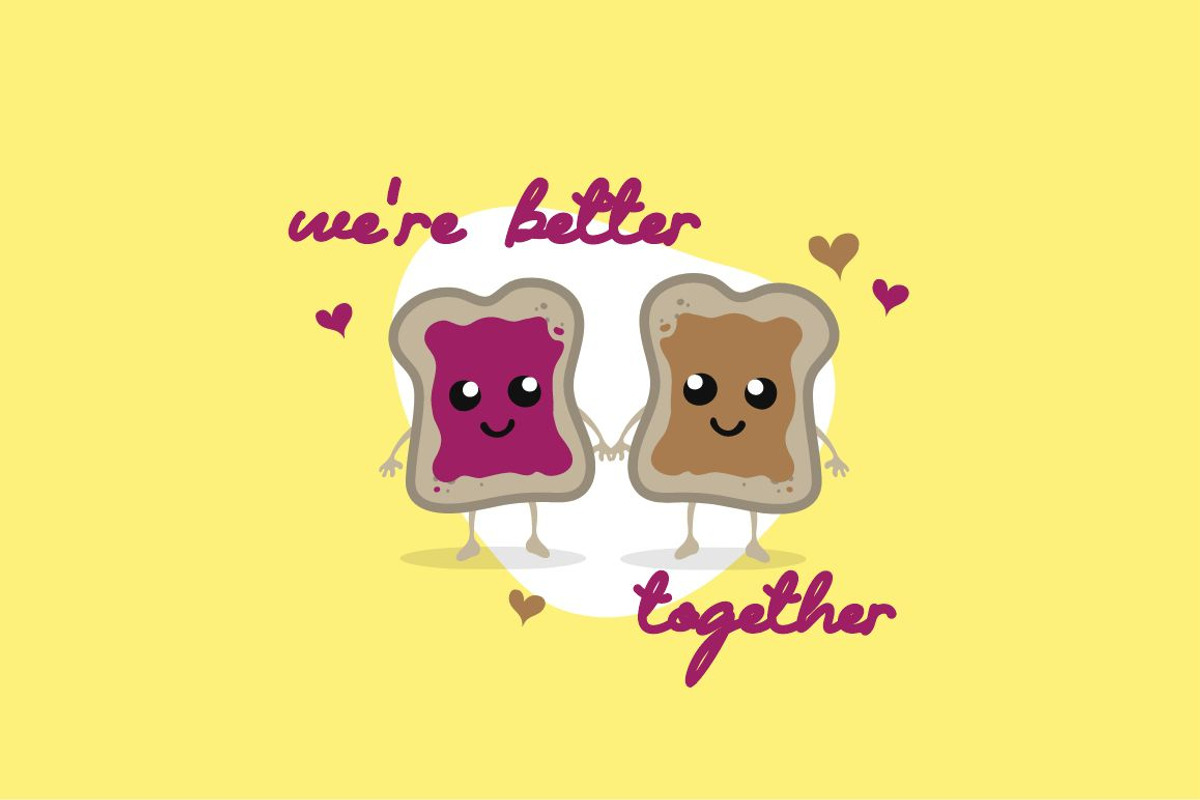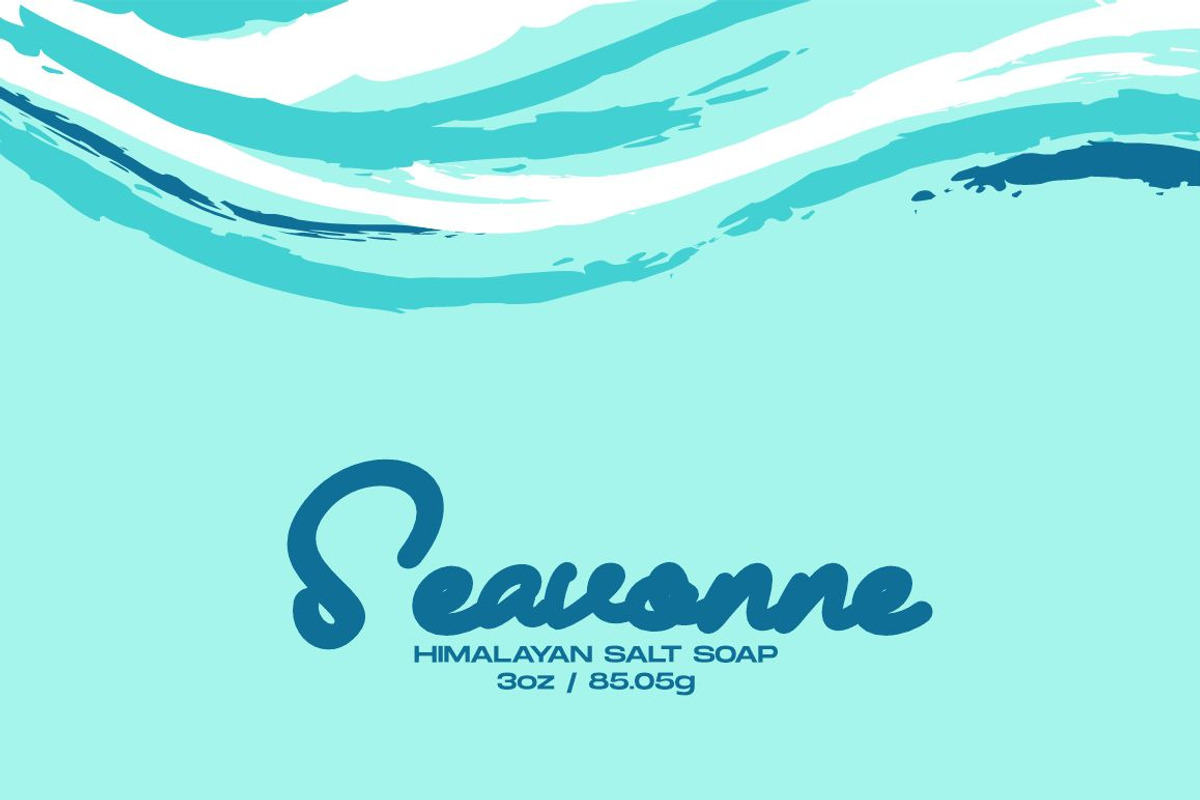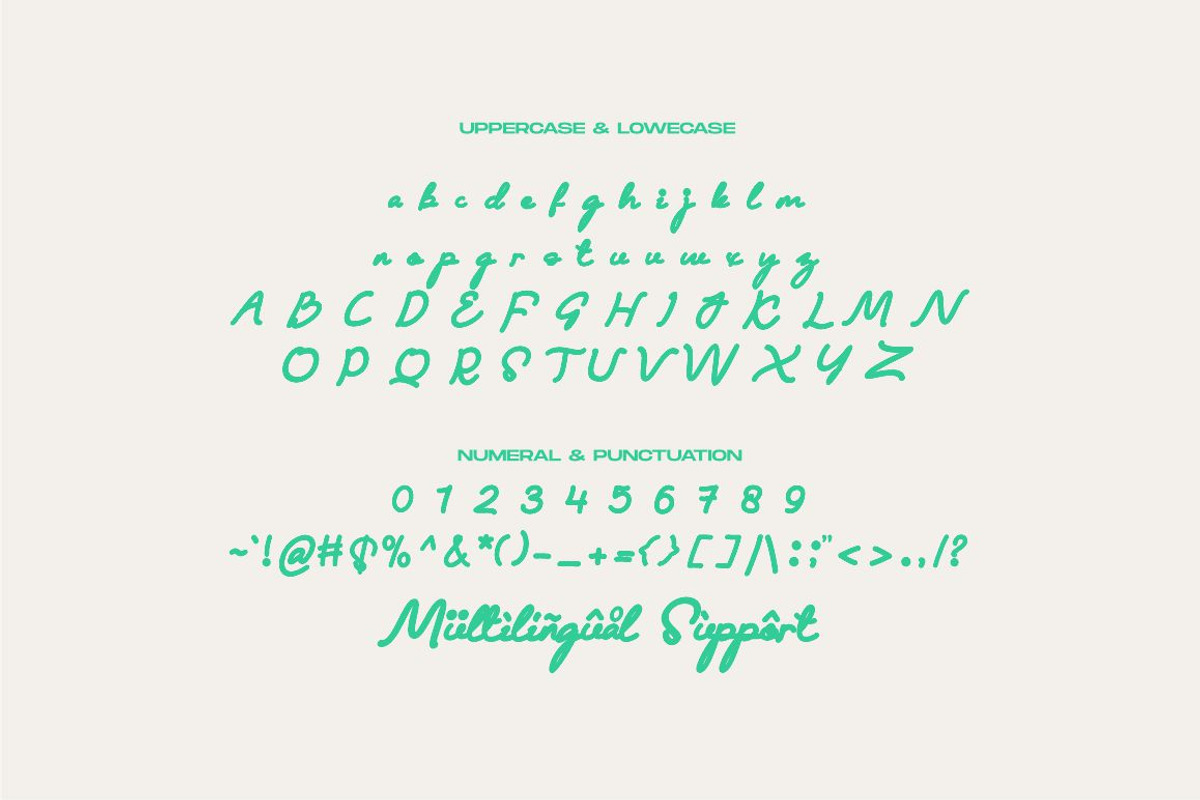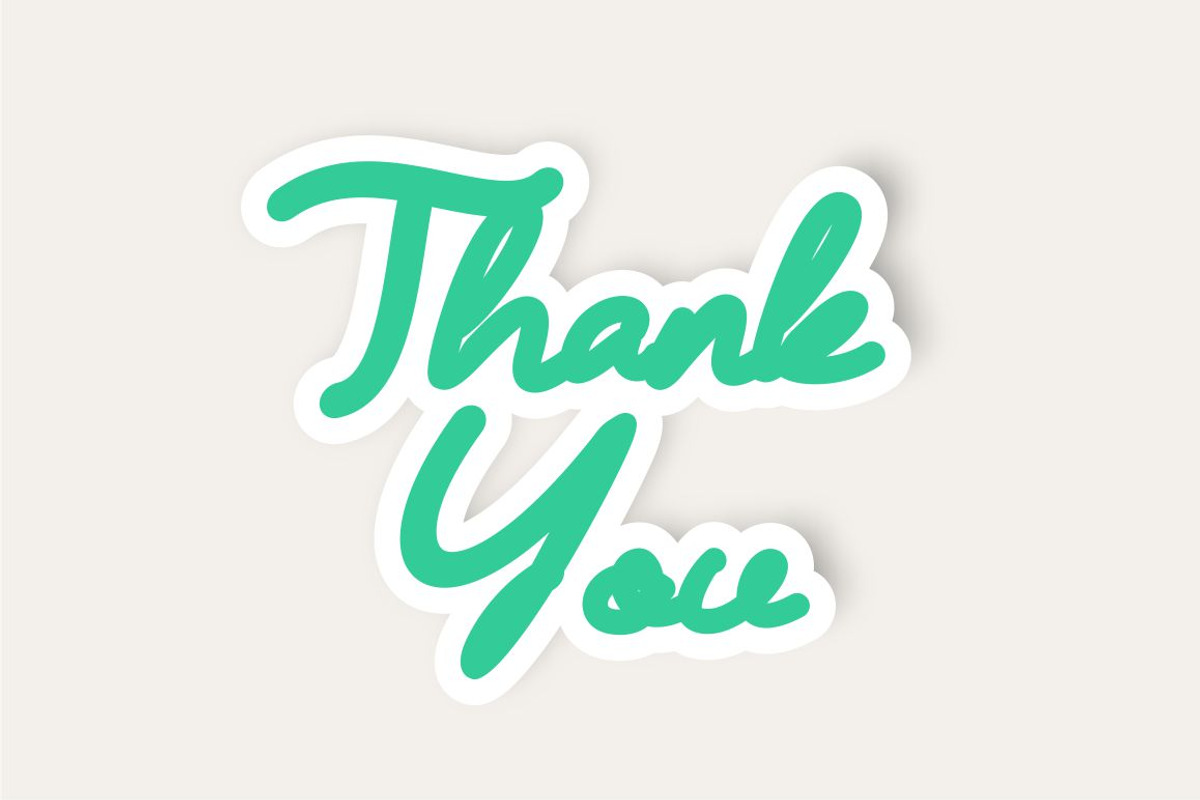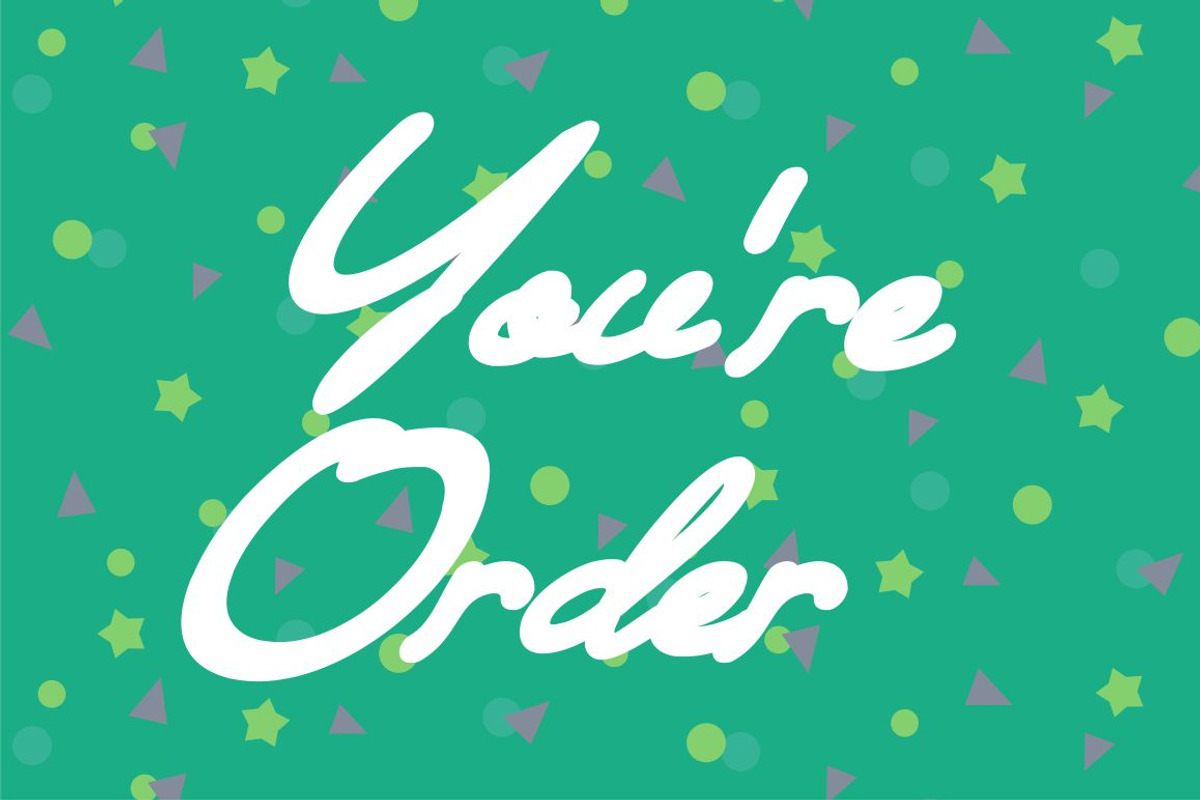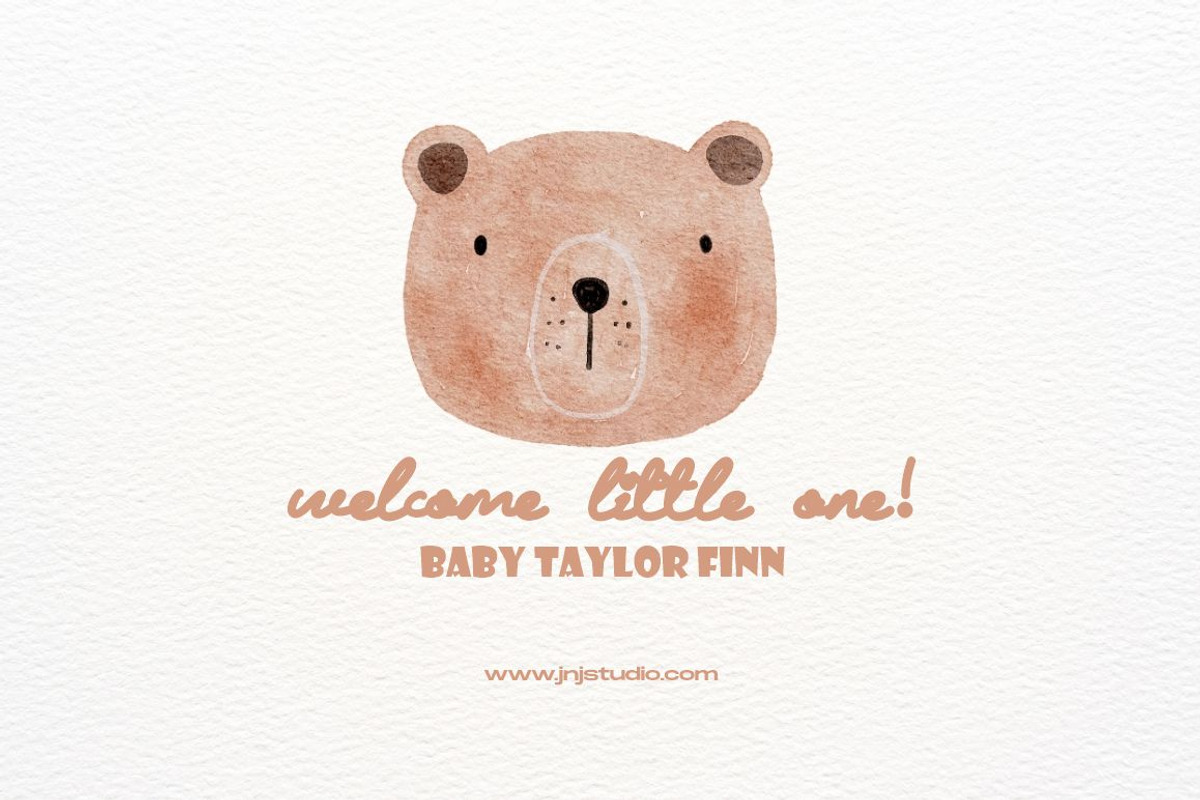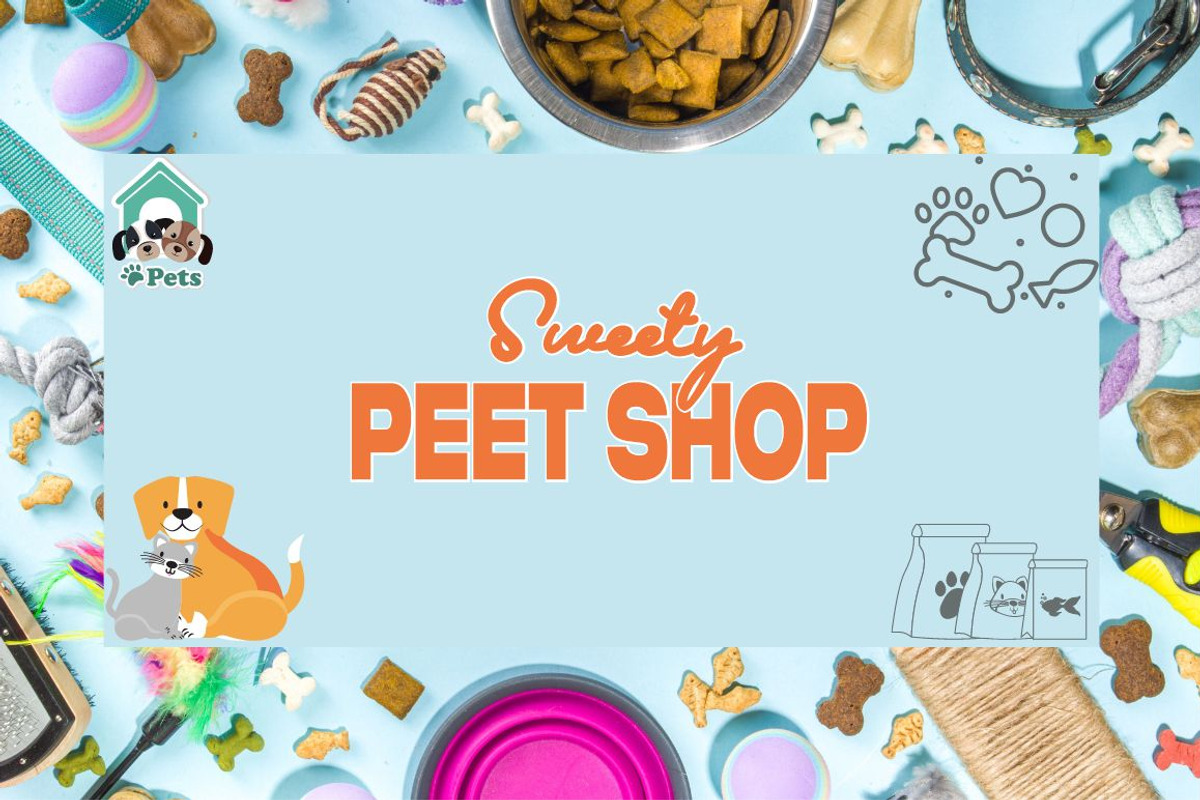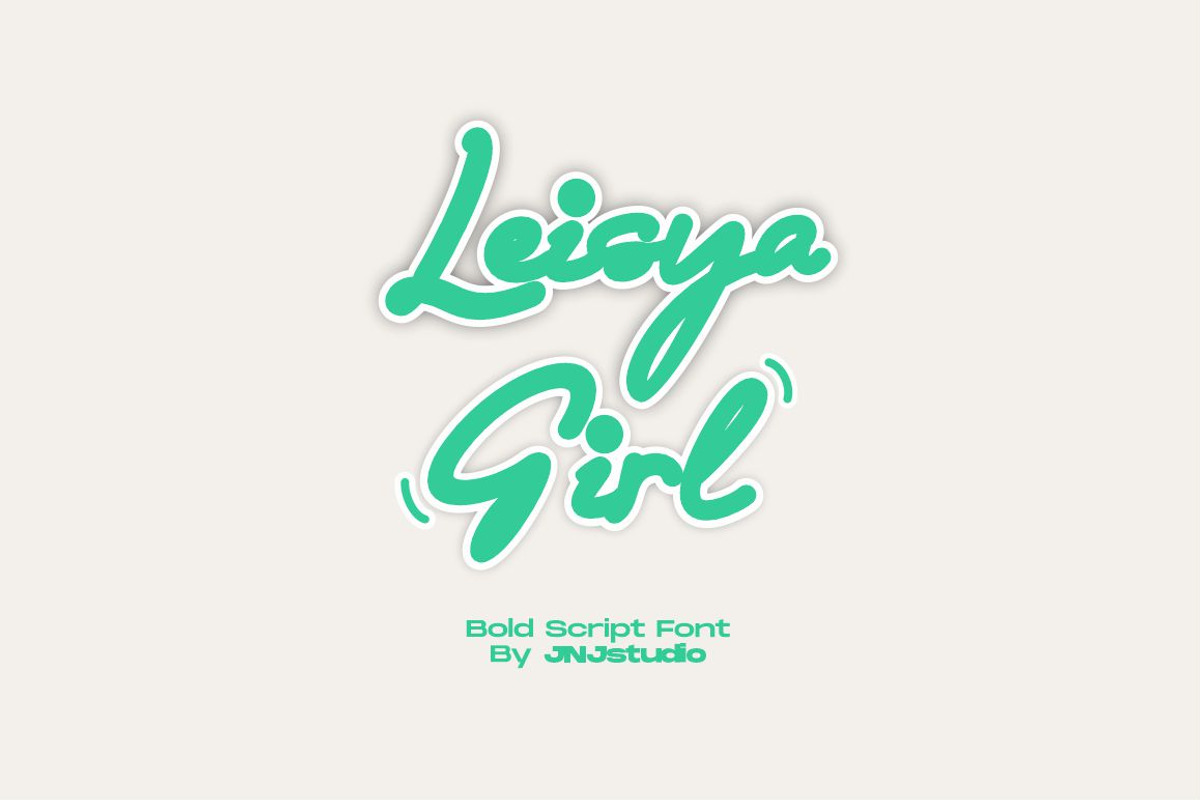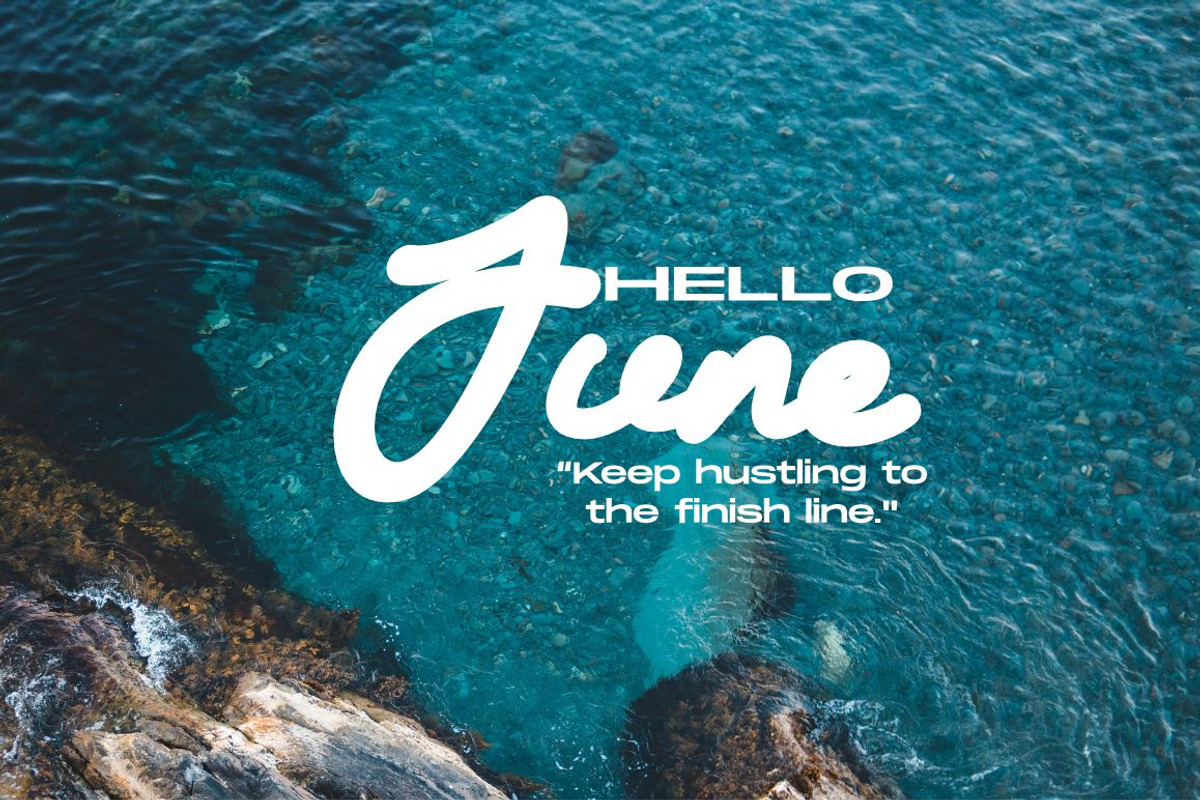
Leisya Girl Script Font Bold
Introducing "Leisya" Font is a captivating script bold typeface that blends elegance with strength. This font features thick, sweeping strokes that add a dynamic and energetic flair to any design. The bold weight of the letters gives it a strong presence, making it perfect for headlines, logos, branding, and other creative projects that require a striking visual impact.
Leisya Font maintains a beautiful balance between boldness and script elegance, with smooth curves and intricate details that give it a hand-lettered feel. It's ideal for adding a touch of sophistication and personality to your designs, while still being highly readable and versatile across various mediums. Whether used in print or digital formats, Leisya Font stands out with its unique combination of boldness and fluidity, making it a go-to choice for designers looking to make a statement.